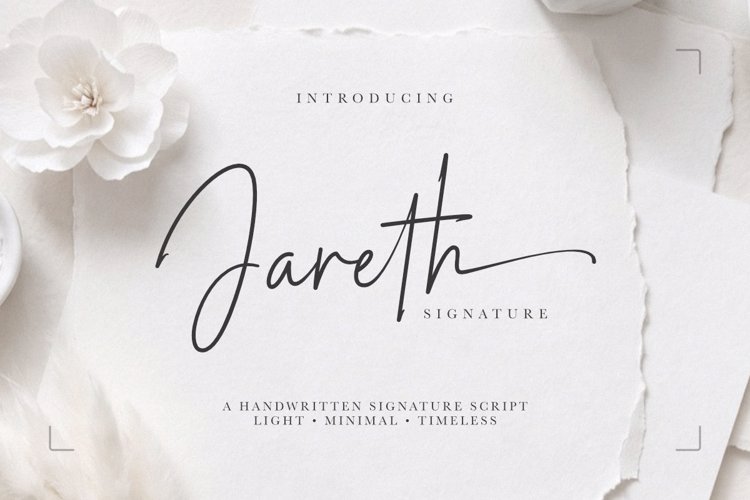
Jareth Signature Font
Jareth Signature is a refined handwritten script inspired by modern luxury signatures. Built with slender monoline strokes, airy spacing, and elongated letterforms, it delivers a calm, sophisticated rhythm that feels personal instead of decorative. Rather than relying on heavy flourishes, the beauty of this typeface comes from its confident simplicity and natural handwritten movement.